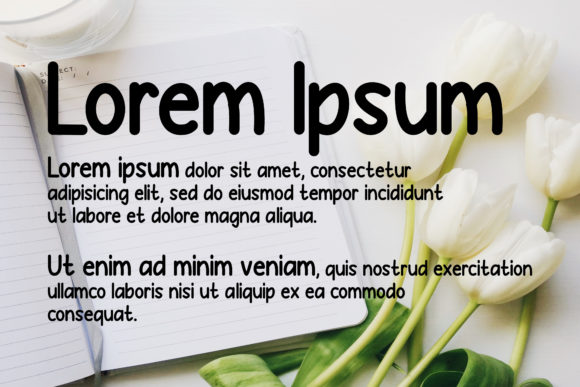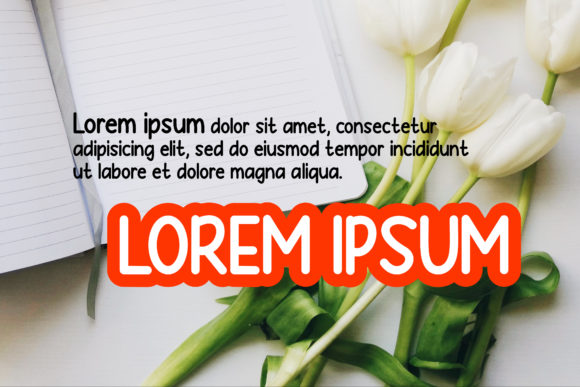
A Beautiful Day Font: Bringing Joy to Your Creations
Have you ever sat down at your desk, surrounded by blank sheets of paper and a flurry of ideas, only to be stopped in your tracks by the perfect font? For many designers, finding the right font can be the difference between a good design and a great one. It’s that moment when everything clicks, and your vision starts to take shape.
A Beautiful Day Font is here to help you capture that moment. This clean and casual handwritten font is the perfect addition to any designer’s library. Whether you’re working on a project that requires a touch of elegance or a dash of playfulness, A Beautiful Day Font has the potential to elevate your creation and leave a lasting impression.
With its versatility and charm, A Beautiful Day Font is a valuable asset for any designer. It’s the perfect choice for those looking to add a personal touch to their work without sacrificing professionalism.
A Beautiful Day Font Key Features
- Font Family: A Beautiful Day is a sans-serif font family designed by Emily Hudson, released by Font Squirrel.
- Font Sizes: Offers a wide range of font sizes, from 8pt to 144pt, making it suitable for various applications.
- Resolution: Designed for high-resolution displays, making it ideal for use in digital media.
- Unique Characteristics: A Beautiful Day font features a clean, modern design with subtle rounded edges and a friendly feel, making it perfect for body text, headlines, and titles.
A Beautiful Day Font Review
I was excited to dive into the A Beautiful Day Font, and I have to say it’s a mixed bag. On one hand, there are some great things about this font.
- ✨ The font’s hand-drawn feel is lovely, adding a touch of warmth and personality to any design.
- ✨ The font is highly customizable, with a range of weights and styles to choose from.
- ✨ The font is also surprisingly versatile, working well in a variety of contexts from display headings to body text.
However, there are also some limitations to consider.
- ⚠️ The font can feel a bit rough around the edges, with some letters not being as polished as others.
- ⚠️ The font’s high customizability can also make it feel a bit over-designed, with too many options to choose from.
- ⚠️ The font may not be the best choice for very large or very small text sizes, as the details can get lost.
Overall, I think the A Beautiful Day Font is a solid choice for designers looking for a unique, hand-drawn feel. While it has some limitations, it’s also highly customizable and versatile. Just be aware of the potential pitfalls, and use it thoughtfully.
Tips for Getting the Most Out of A Beautiful Day Font
Use A Beautiful Day font for:
- Birth announcements and baby shower invitations.
- Quirky and playful branding and marketing materials.
Remember to pair the font with a clean and simple design to maximize its impact.
Pacifico is a beautiful, modern script font perfect for creative, artistic, and emotional branding. It features a unique, handwritten feel and a relaxed, casual tone. When to use: For creative agencies, art galleries, and brands that want to convey a sense of freedom and playfulness.